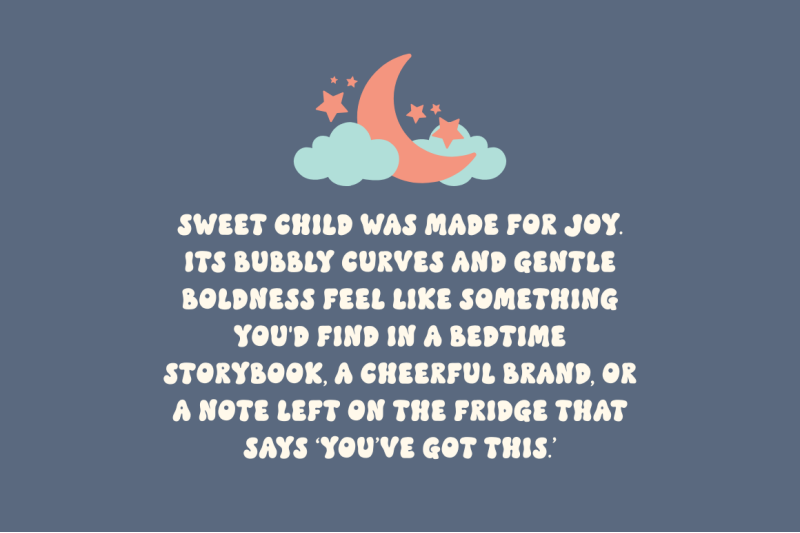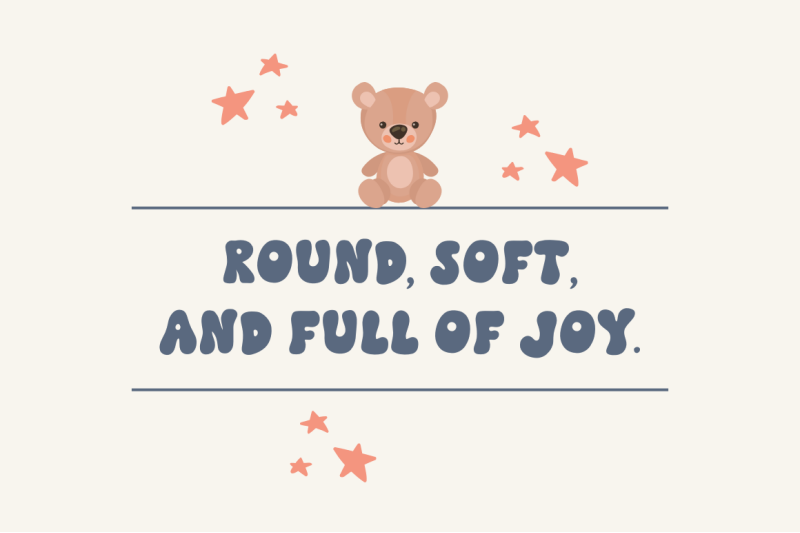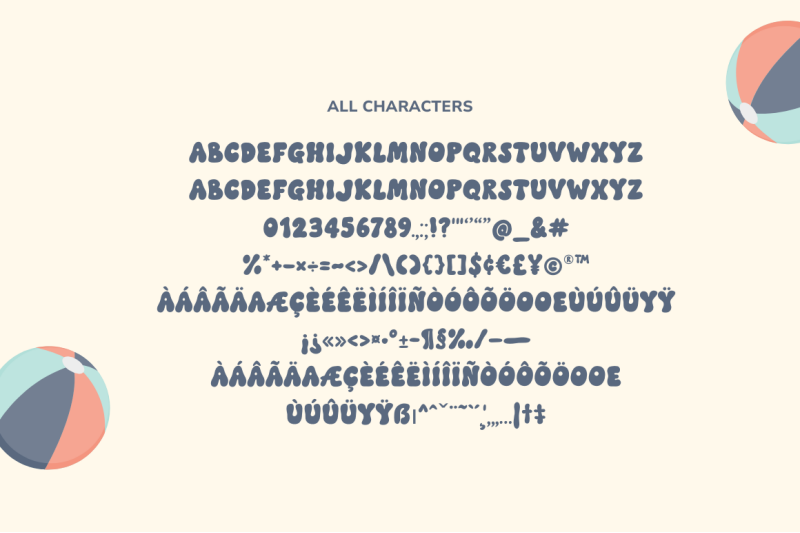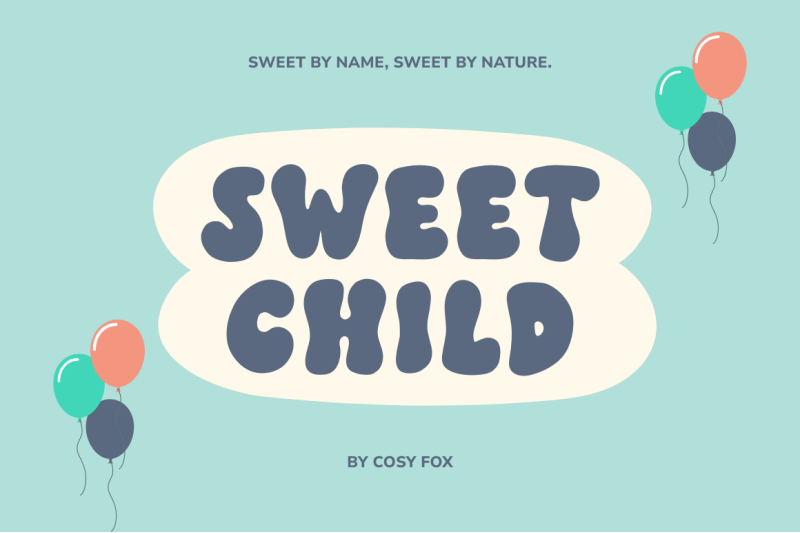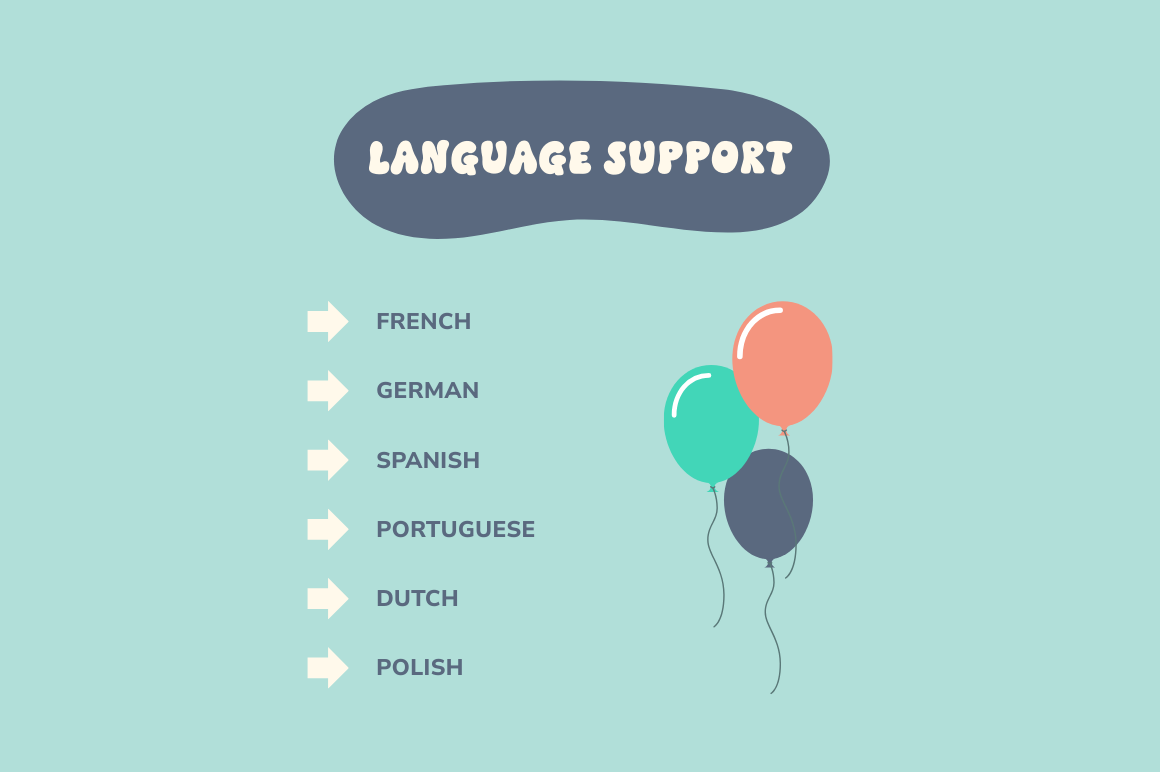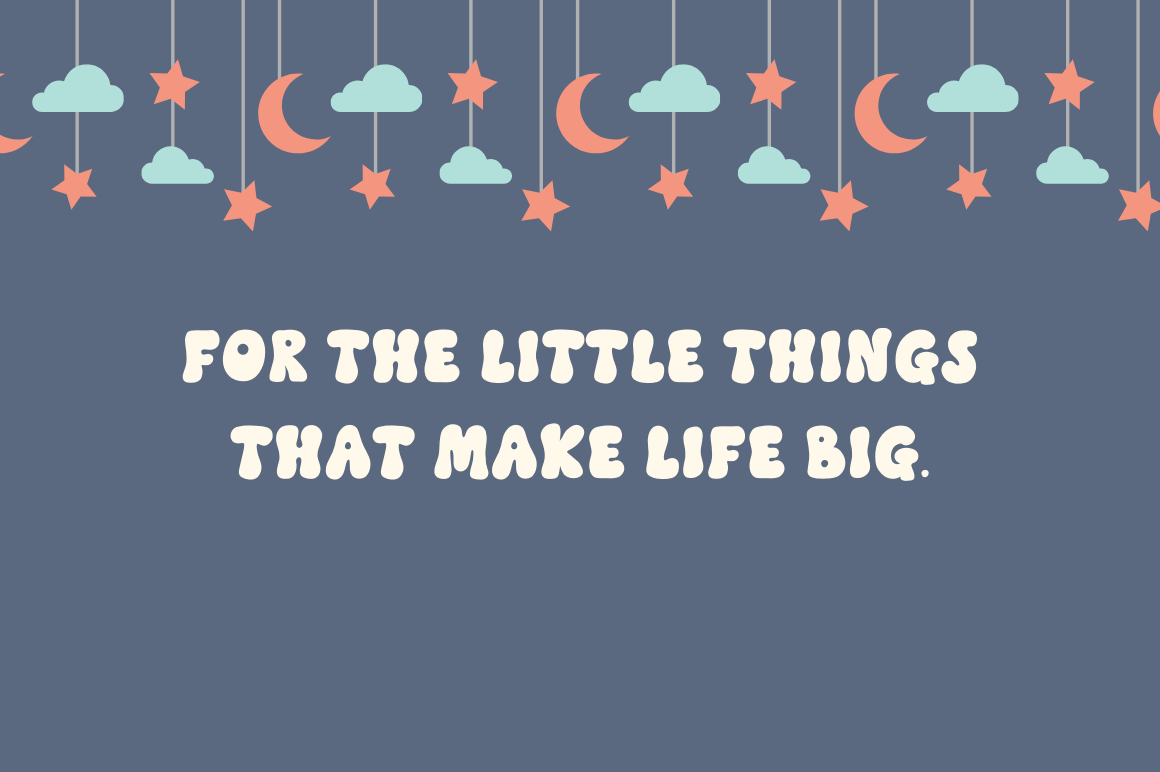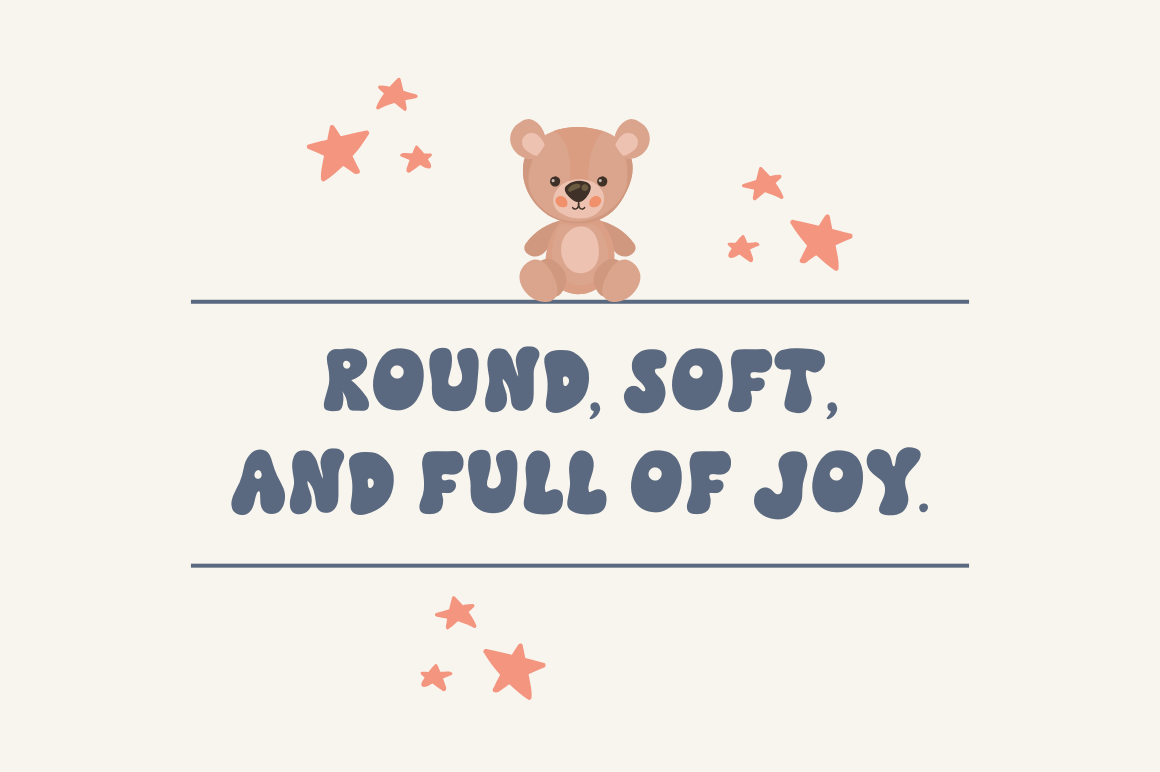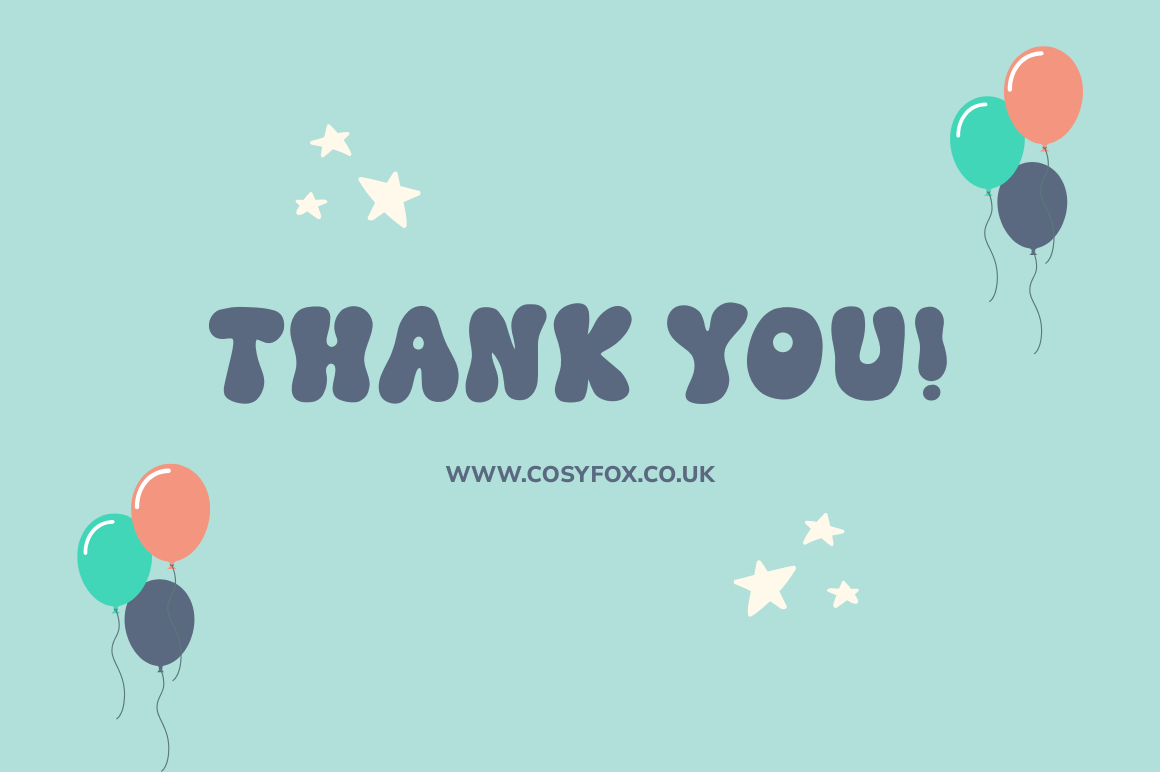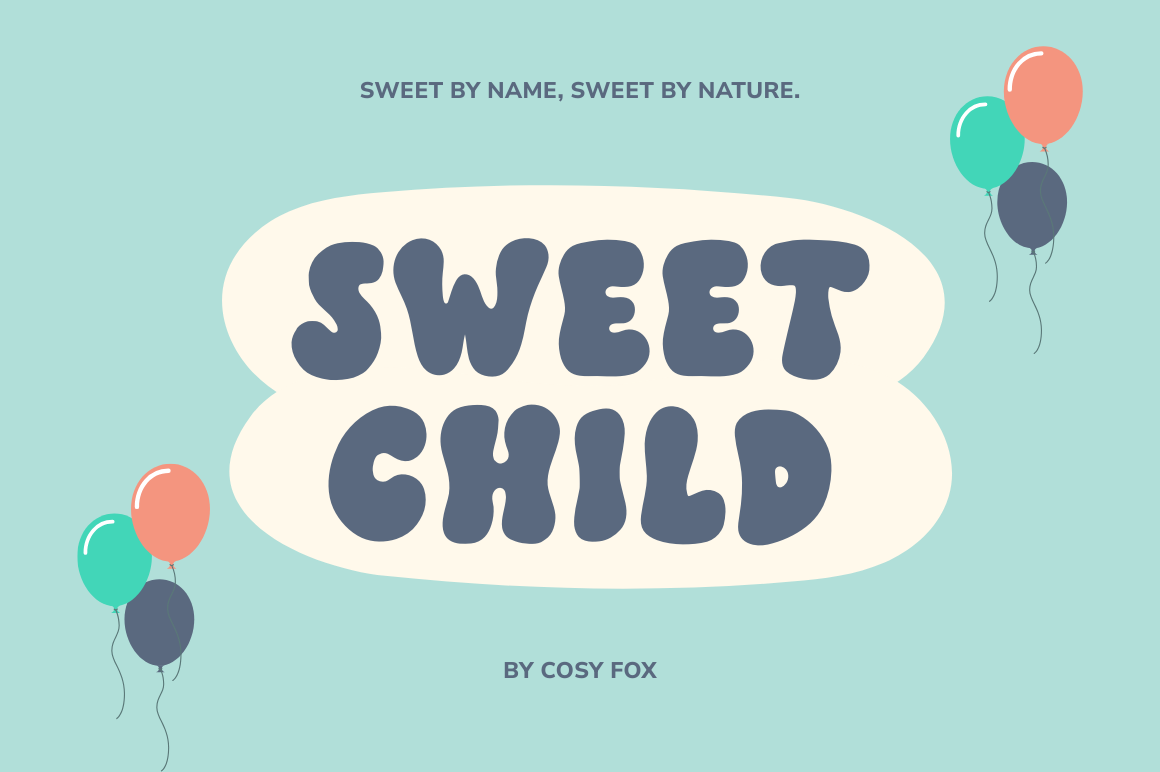
Sweet Child Font
Sweet Child is a chubby, cheerful display font full of warmth and wonder. With smooth, rounded shapes and a hand-drawn feel, it’s made for projects that want to feel kind, joyful, and just a little nostalgic. Perfect for kids’ products, birthday invites, self-care quotes, or branding that wants to say “hello” with a smile. This bold, all-caps font is easy to use in Canva, Procreate, and your favourite design tools—bringing softness and charm wherever it goes. Language Support: French, German, Spanish, Italian and Portuguese. What You Get: Sweet Child .OTF font file, How to Install PDF. Thank You! www.cosyfox.co.uk